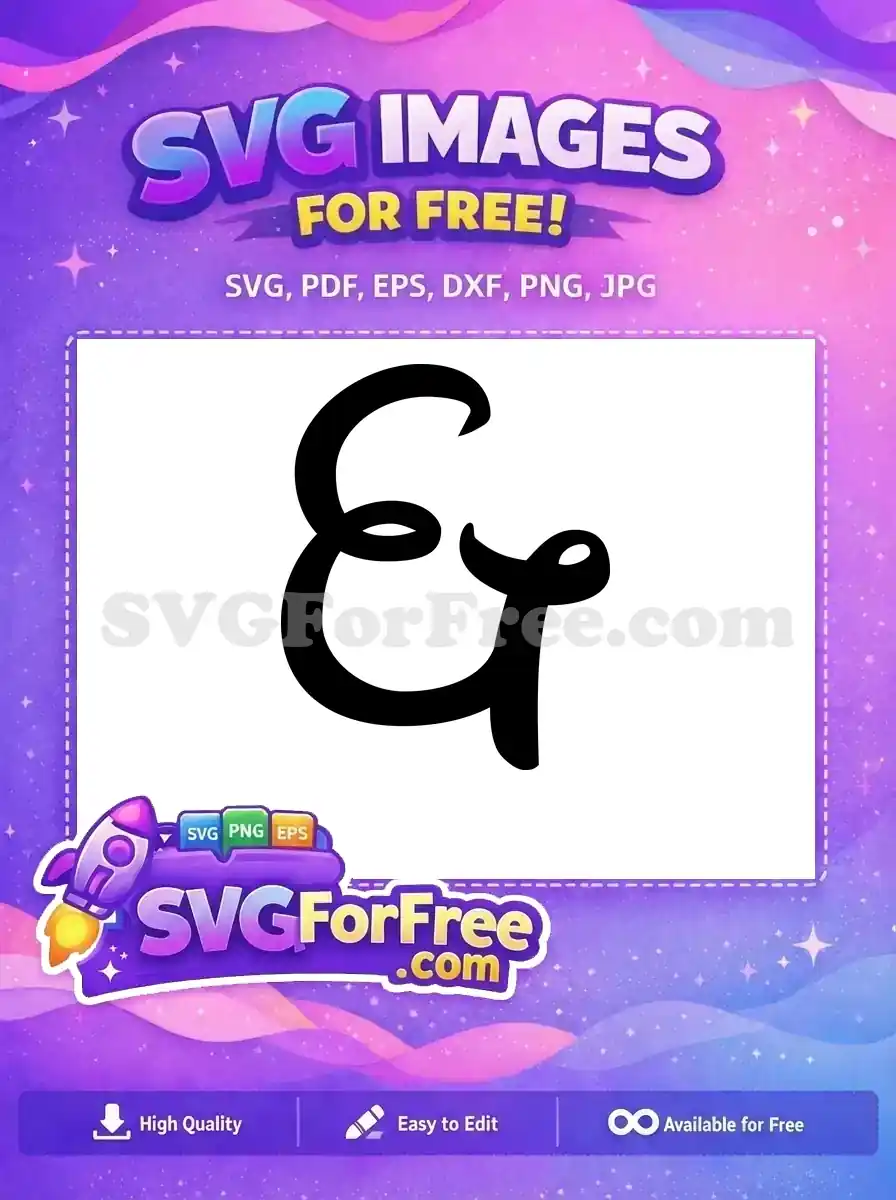
Free Minnie Swirl Font Free Ampersand Free SVG – Instant Download
A decorative black script ampersand (&) with thick, continuous, sweeping curves, an elegant and complimentary vector. (105 chars)
Free Minnie Swirl Font Free Ampersand Free SVG